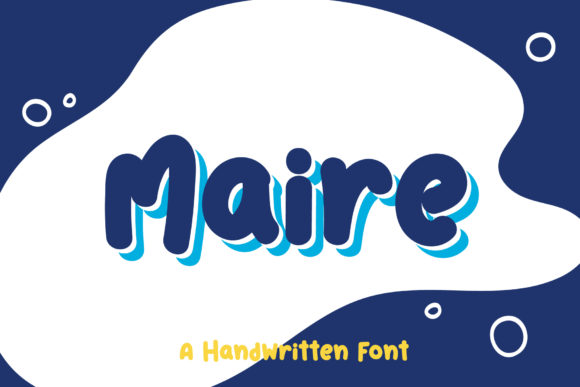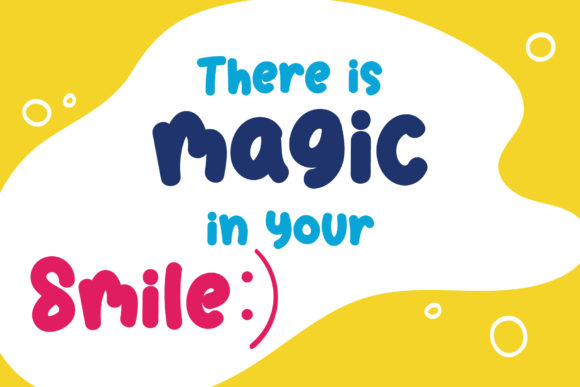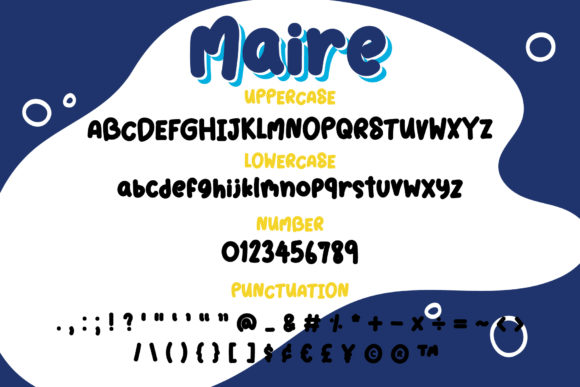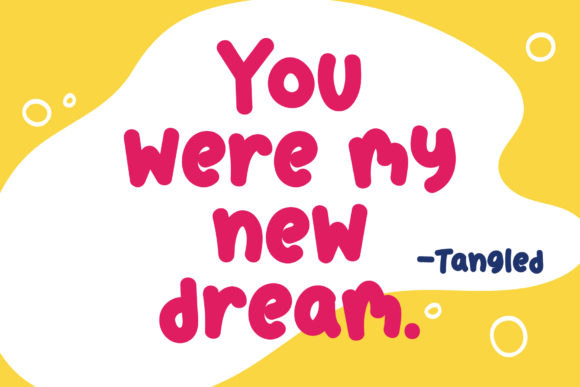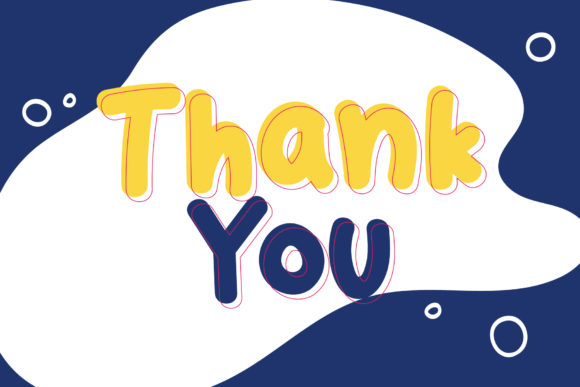
Maire Font
About Maire Font
Maire is a cute handwritten font, created with the help of an outstanding brush pen. Fall in love with its incredibly versatile style and use it to create spectacular designs!